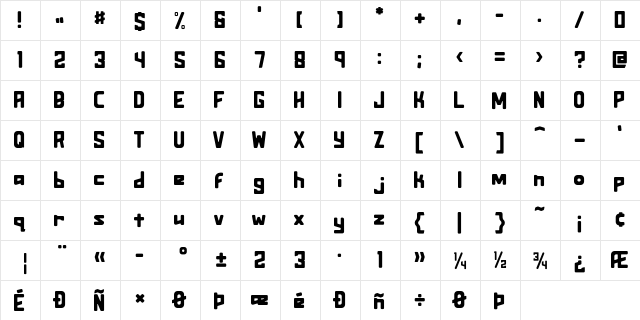
Assurant Standard
| Foundry | Clint Self |
| Designer | Clint Self |
Design Context for Assurant Typeface
Assurant is a composed and adaptable typeface that performs quietly and consistently across a wide range of design contexts.